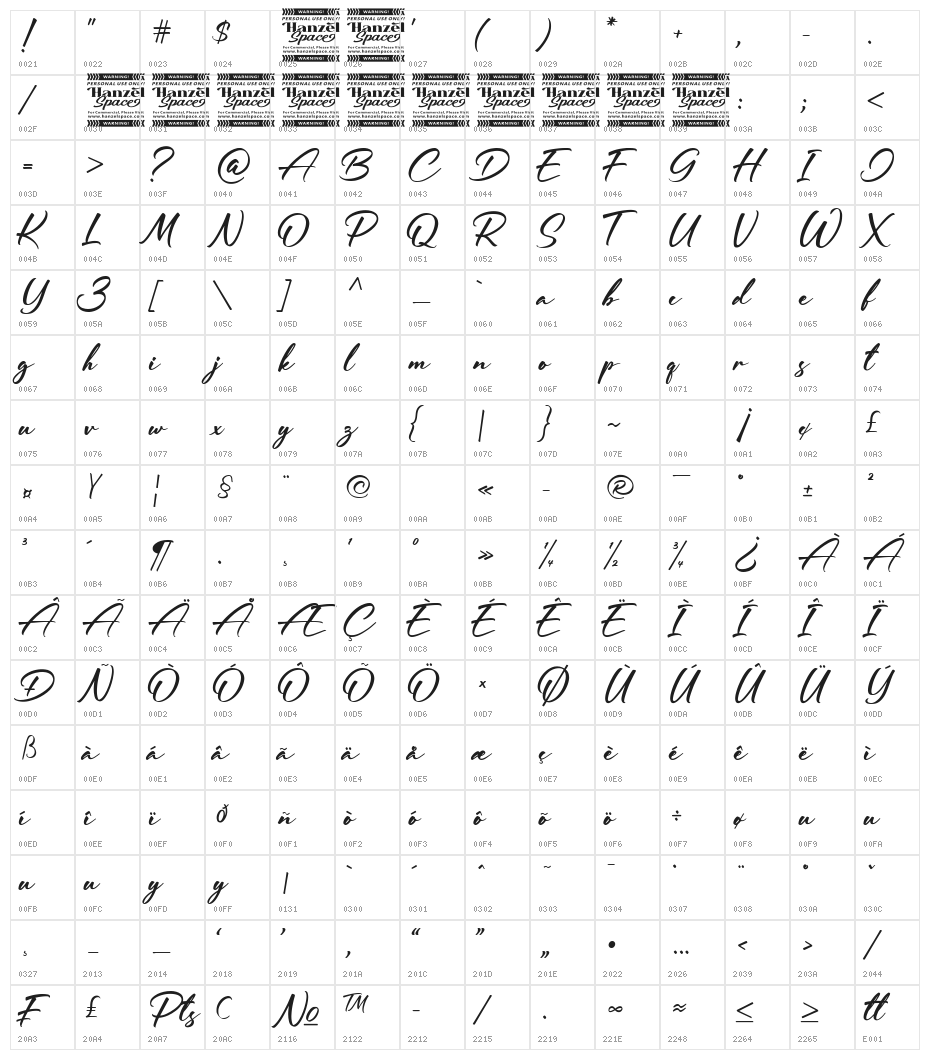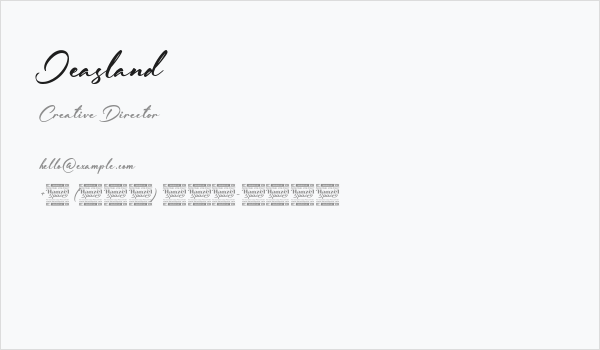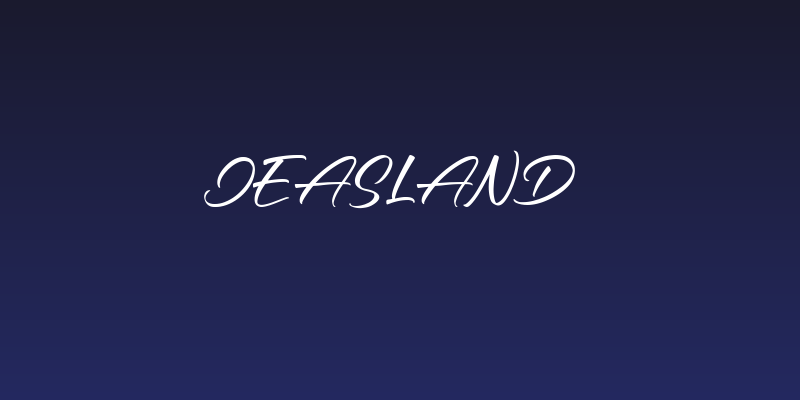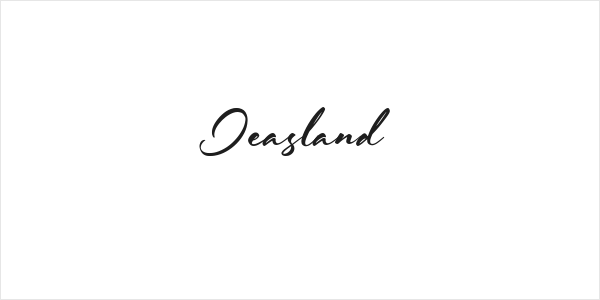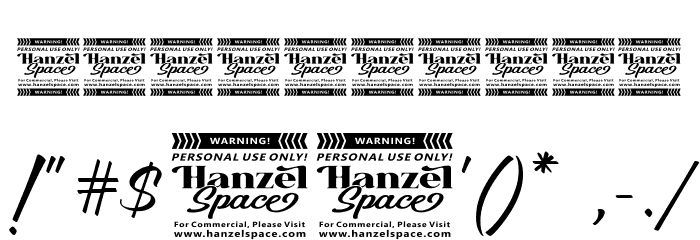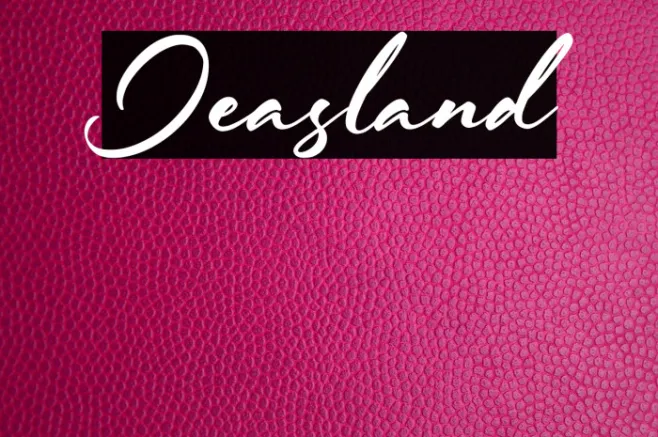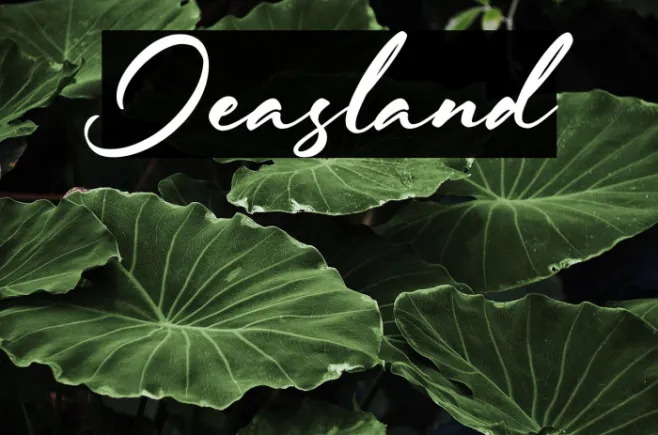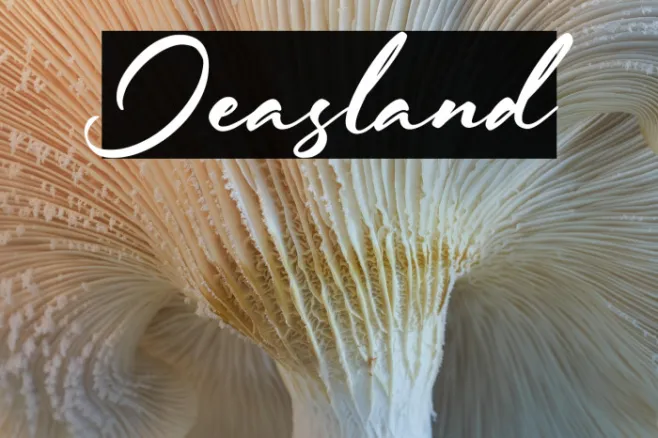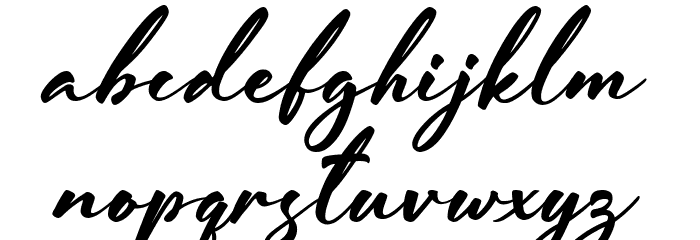
Jeasland Font
Jeasland Description
This font features a dynamic and elegant script style with a flowing, cursive appearance. The uppercase letters are tall and slightly slanted, giving a sense of movement and grace. The lowercase letters are more compact, with smooth, connected strokes that enhance the handwritten feel. The font maintains a consistent stroke width, providing a balanced and harmonious look. Special characters and numbers are designed to match the overall aesthetic, ensuring a cohesive appearance across all text elements. This font is suitable for projects that require a personal, artistic touch.